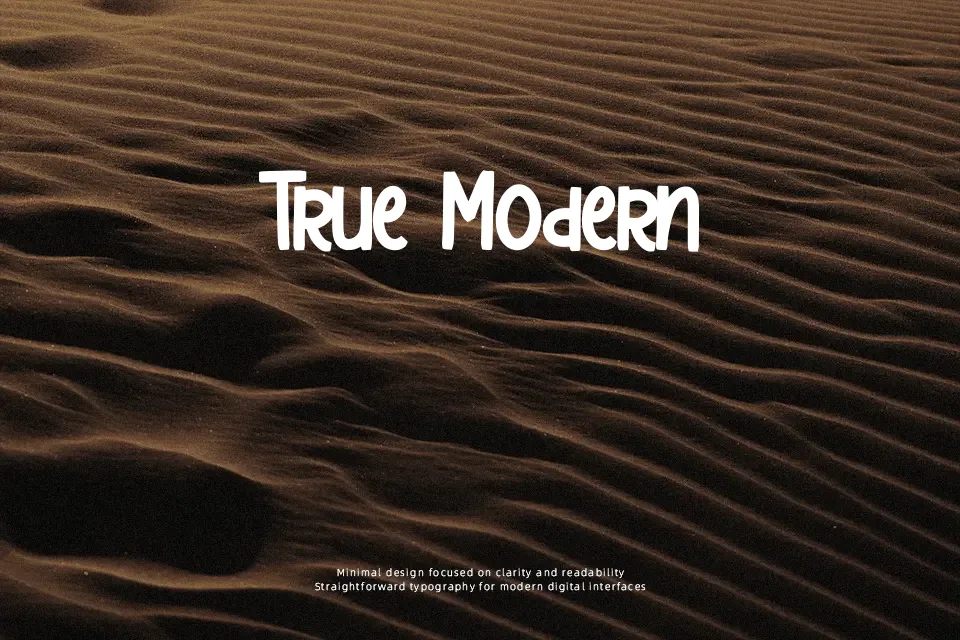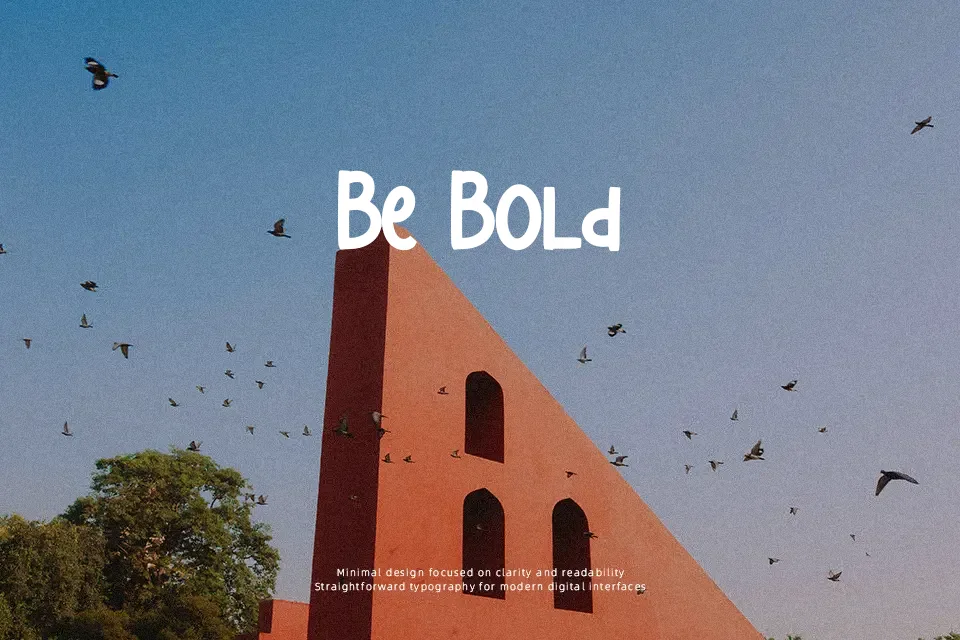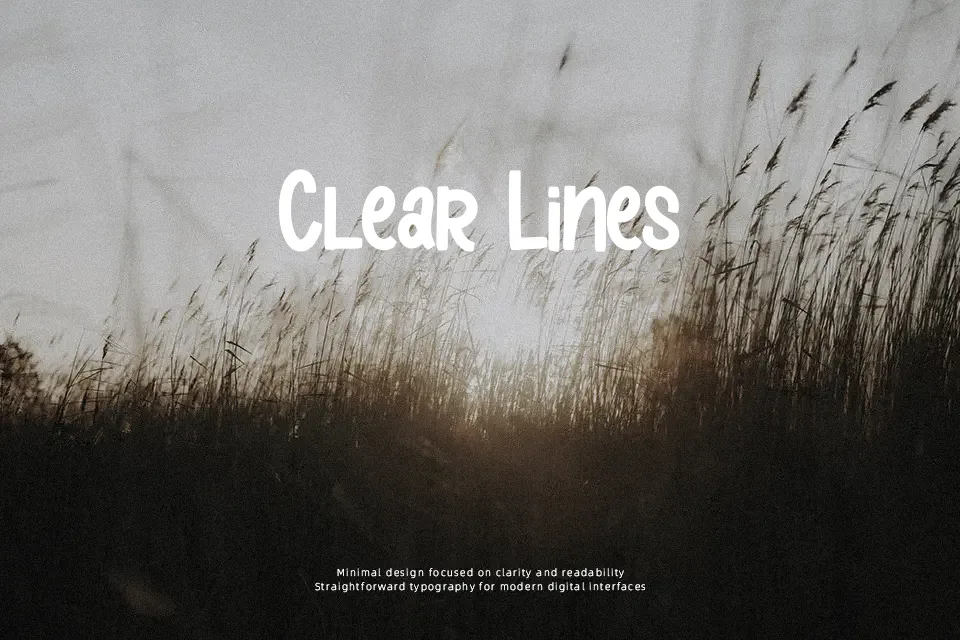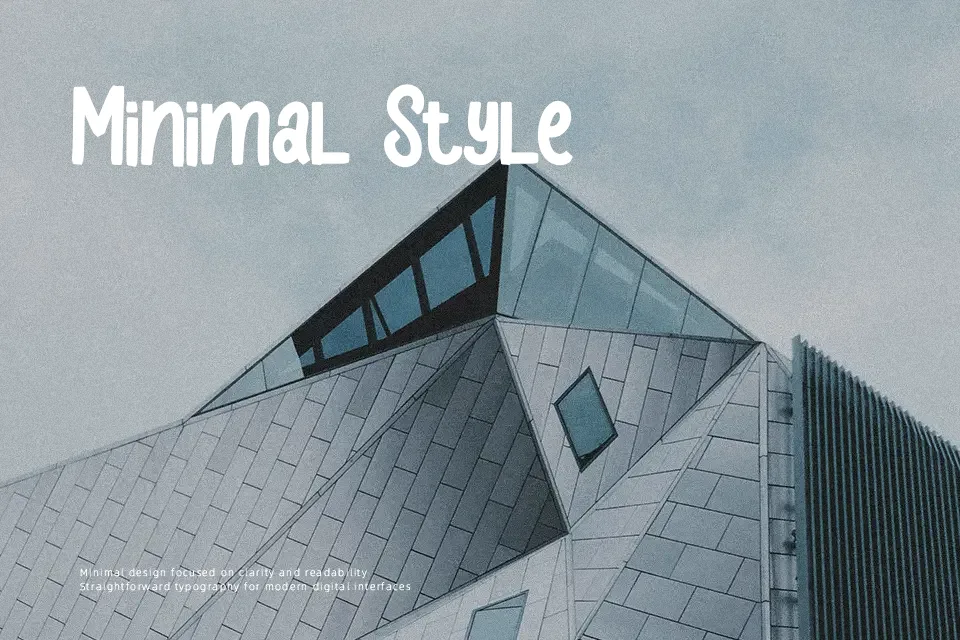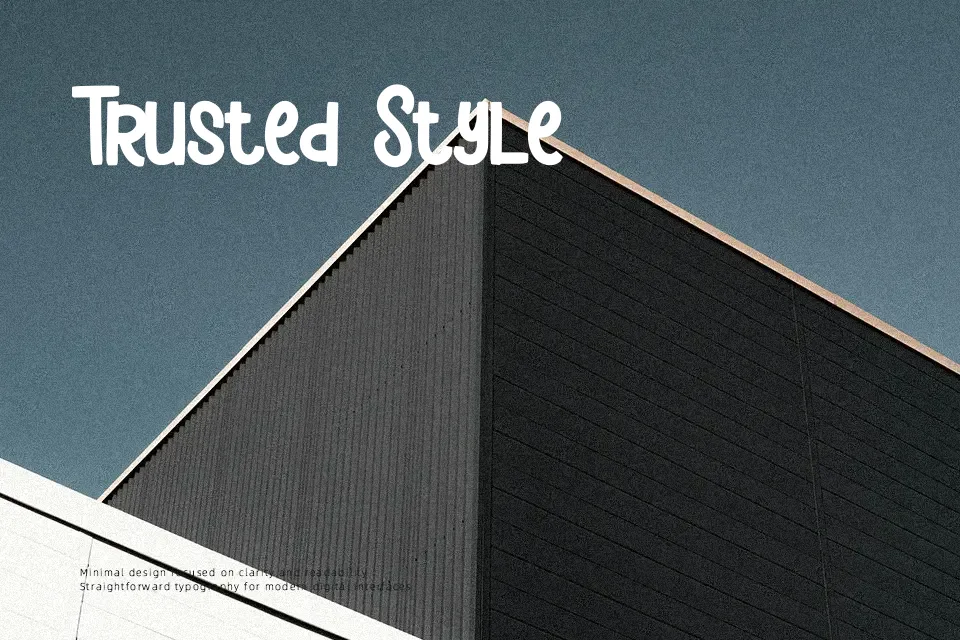
Cheerful Peach Font
Cheerful Peach Font opens with soft, inflated strokes and gentle curves that define its casual display character. Balanced letter widths and uniform line thickness give the typeface a buoyant rhythm across short text blocks. The spacious outer contours ensure solid visibility in prominent headlines, making the design particularly effective for toy branding, novelty stickers, and birthday invitations. When reduced to caption sizes, however, the compact inner counters and close character spacing diminish clarity. The generous stroke weight preserves strong visual impact at large scales, but the dense forms become exhausting to read across extended paragraphs.
Best For: toy packaging,children’s book covers,birthday party invitations,novelty stickers
Not Ideal For: long editorial body text,technical manuals,legal contracts,small interface labels